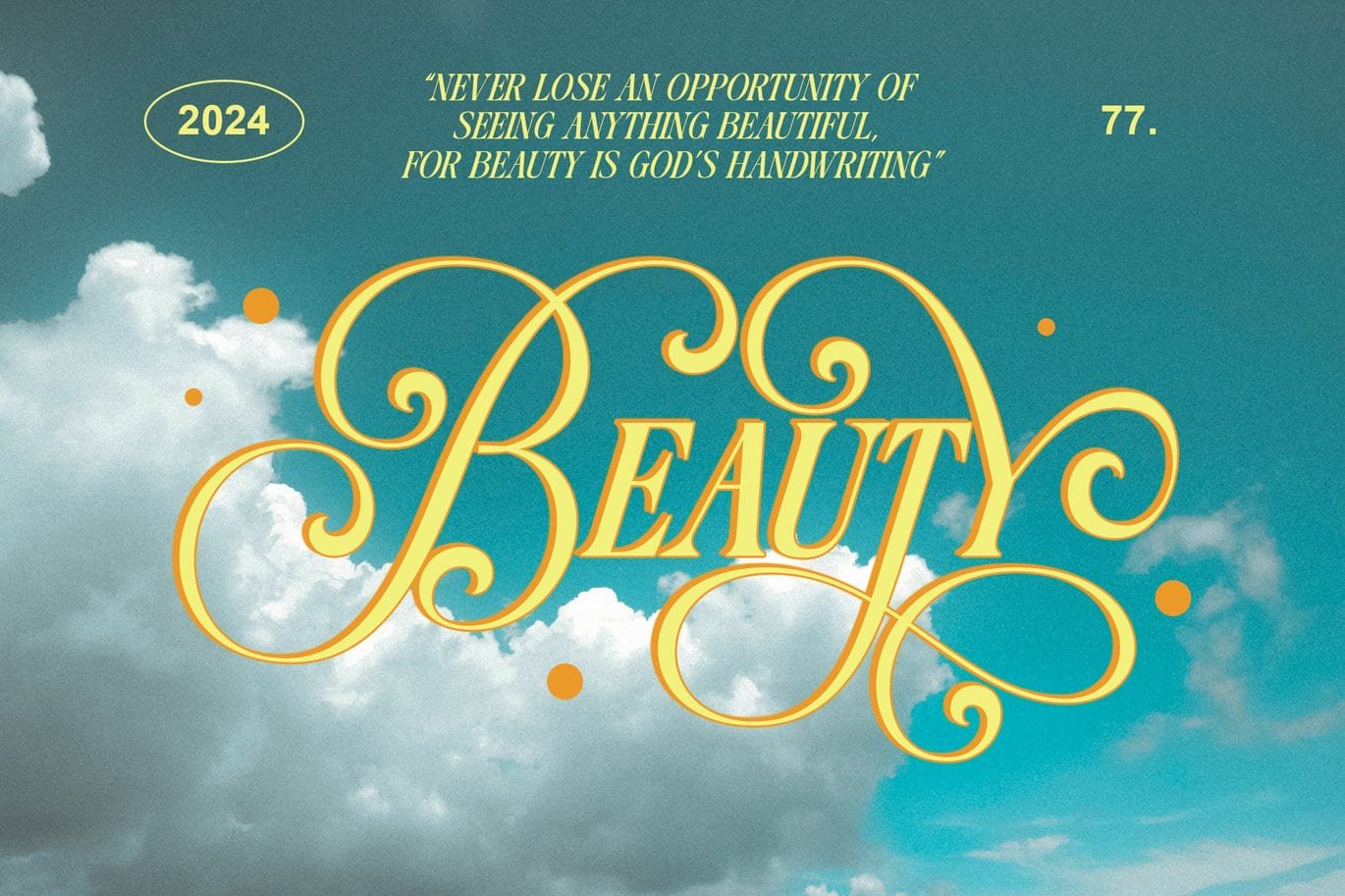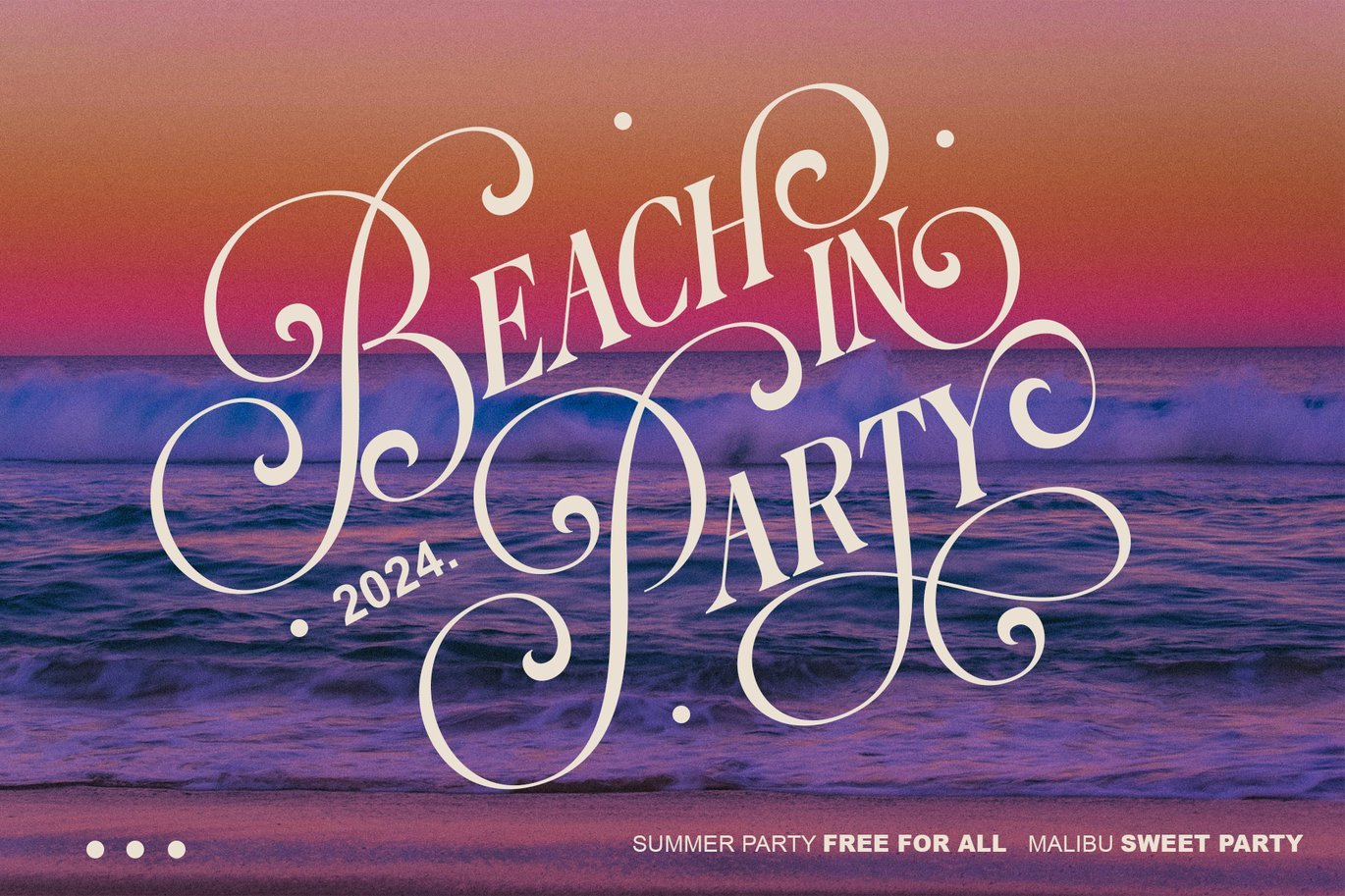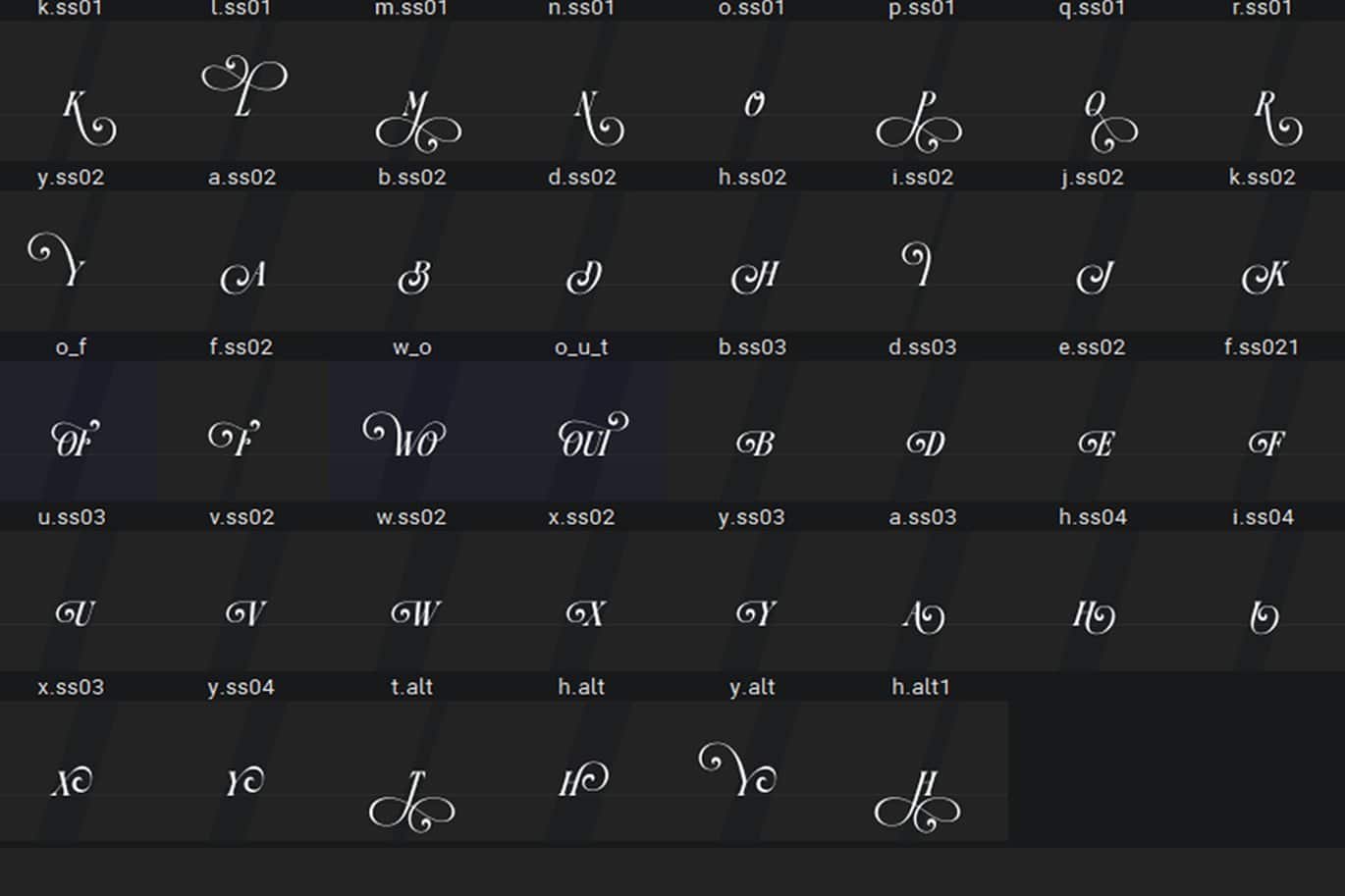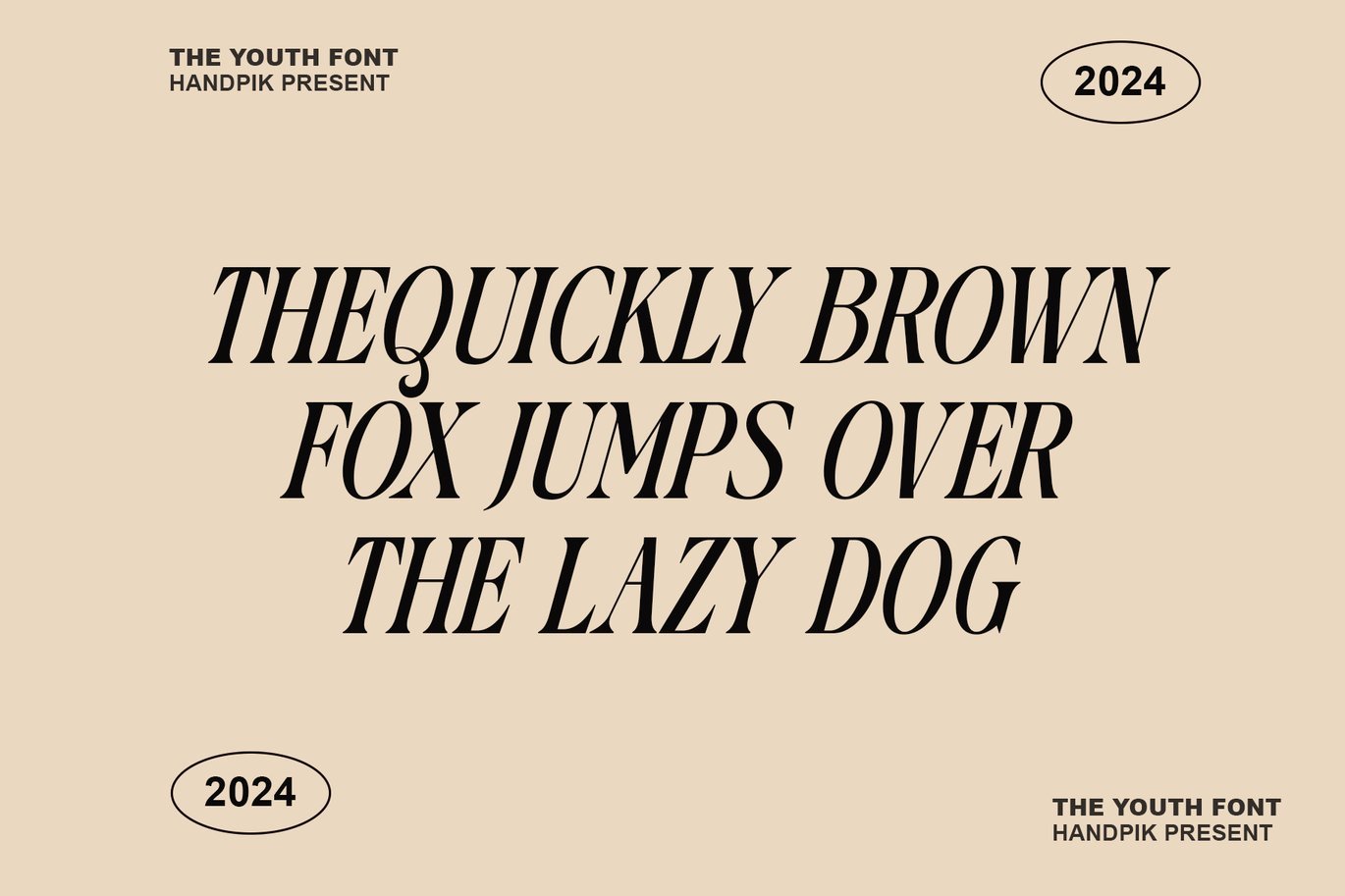
The Youth Font
The Youth will perfect for many project: book, magazines, logo, branding, photography, quotes, blog header, poster, advertisements, etc.